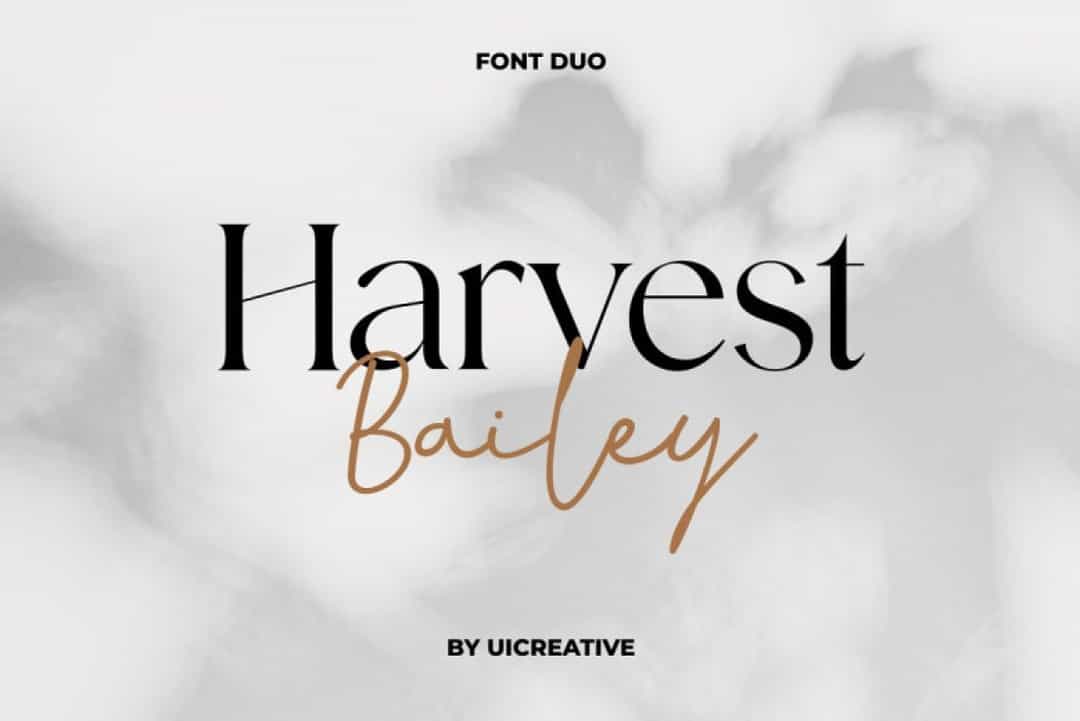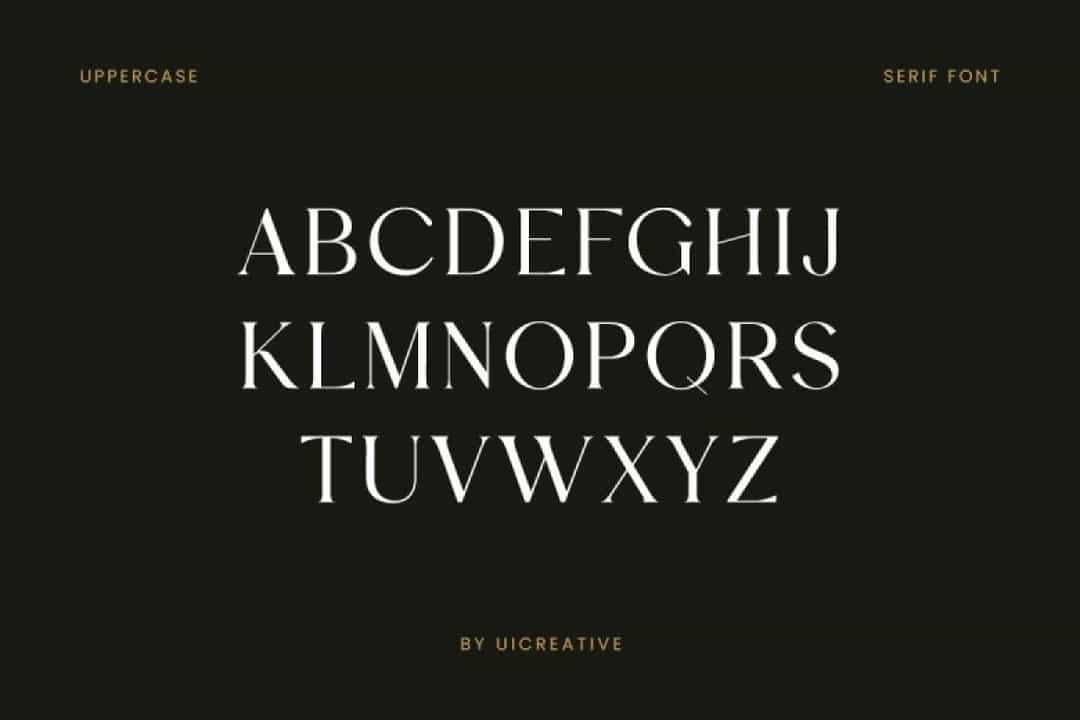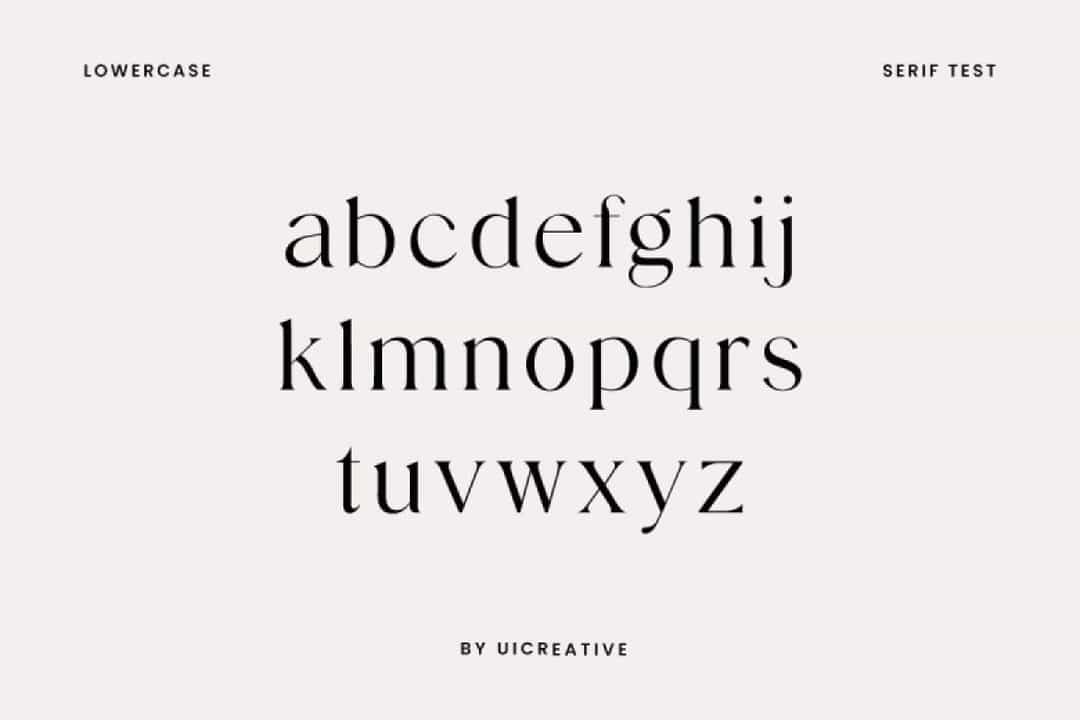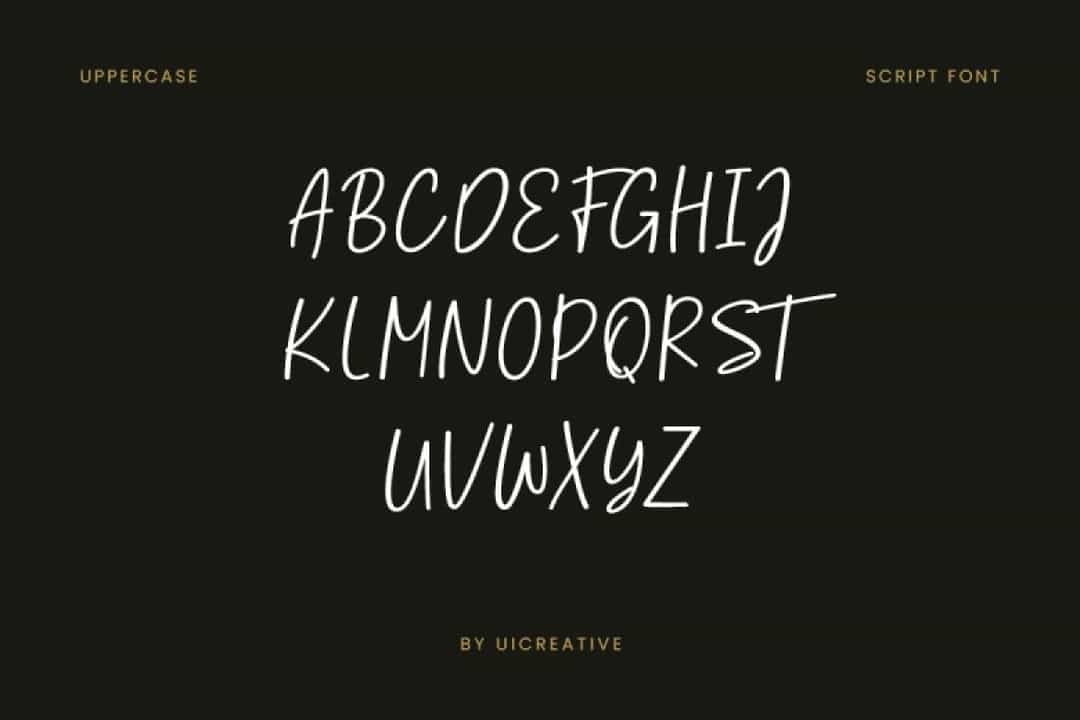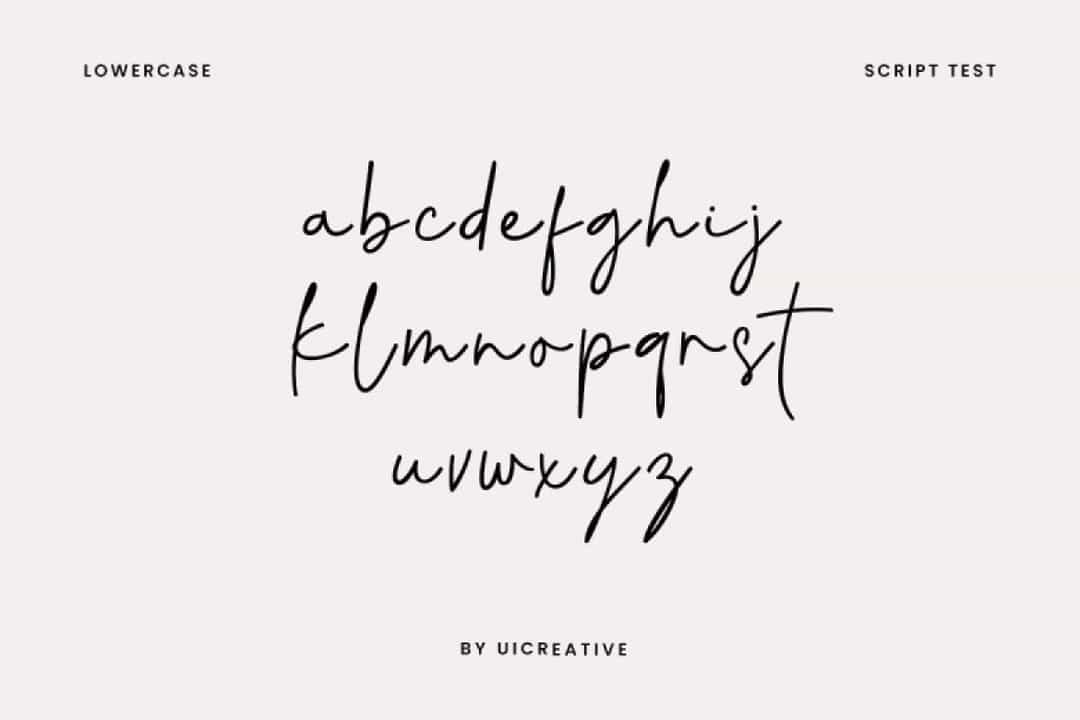
Discover Harvest Bailey Font, part of the Handwritten Serif collection—a versatile and unique font perfect for adding a personal touch to your projects. Download it for free and enjoy crafting designs with style, from invitations to social media posts. This font is available exclusively for personal use, giving you the freedom to create without limits. Unlock your creativity with Harvest Bailey Font today!
Harvest Bailey by UICreative is an elegant blend of serif and script fonts, ideal for many different applications including stationary, signatures, logos wedding, typography quotes book or magazine covers headers for websites branding clothing packaging designs and much more. In particular this font works beautifully when applied to fashion-related editorial designs that display both feminine and masculine characteristics.